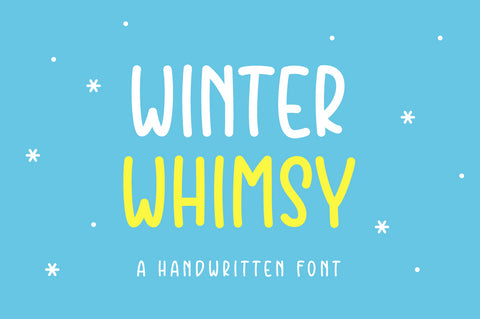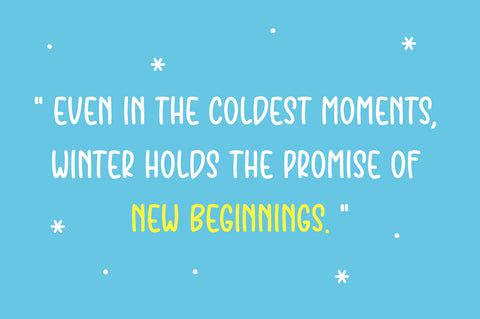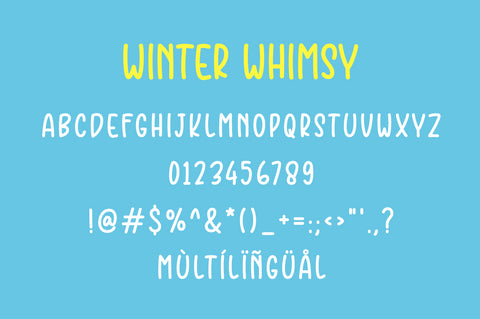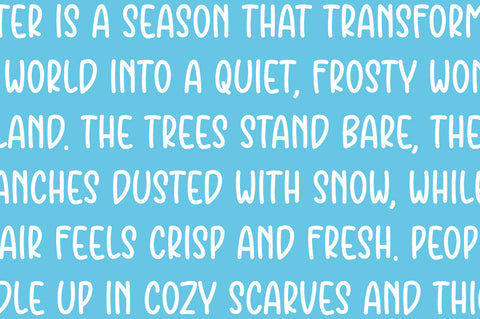
Winter Whimsy Font
Winter Whimsy is a handwritten typeface with smooth, rounded edges and a fun, frosty feel, it's perfect for holiday cards, seasonal branding, kids’ crafts, and festive designs.
Winter Whimsy Features:
- All Caps Letter
– Numbers and symbols
– Multilingual Characters